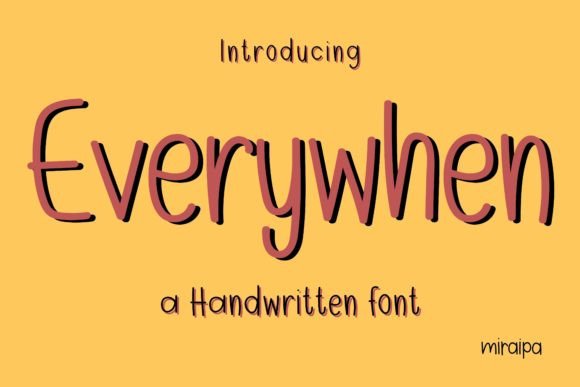
Everywhen Font
Step into the world of Everywhen Font, a captivating sans serif masterpiece from the creative foundry of miraipa. This handwritten font exudes charm and warmth, inviting you to embrace its friendly and lovely style.
Immerse yourself in the beauty of Everywhen, meticulously crafted to bring life to your creative endeavors. Whether you're a passionate journal keeper, a party planner extraordinaire, or a designer seeking inspiration, Everywhen is your perfect companion.
Picture your diary pages adorned with Everywhen's whimsical strokes, capturing your thoughts and memories in a truly unique way. Let your creativity soar as you design enchanting party decorations and invitations, adding a touch of delight to every celebration.
Unleash the versatility of Everywhen in your back-to-school projects, transforming ordinary notebooks into works of art. Create stunning posters and blog designs that captivate your audience, leaving a lasting impression.
With Everywhen, your designs will shine in the digital realm. Craft eye-catching social media posts that stand out from the crowd, or create blog content that leaves your readers spellbound.
Everywhen is more than just a font; it's an expression of your individuality, a reflection of your unique style. Add it to your design arsenal today and watch as your projects come alive with charm and personality.